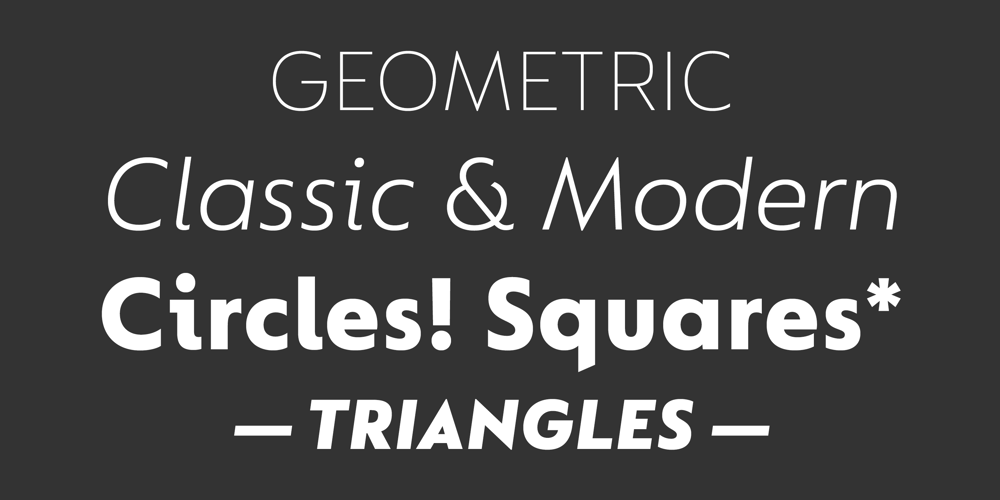
FS Lucas
FS Lucas font
FS Lucas Font Family was designed by Stuart De Rozario and published by Fontsmith. FS Lucas contains 18 styles and family package options. Pure and not-so-simpleMaybe it’s the air of purity, openness and transparency that they transmit, but geometric typefaces are more popular than ever among leading brands. Based on near-perfect circles, triangles and squares, geometric letterforms look uncomplicated, even though making them readable is anything but – something the designers of the first wave of geometric fonts discovered nearly a century ago. Many of the world’s most recognisable brands in technology, retail, travel, food, manufacturing and other industries continue to be drawn to the straightforward, honest character that geometric fonts convey.Fontsmith set out in 2015 to develop a typeface in the same tradition, but optimised for the demands of modern brands – online and offline usage, readability and accessibility. And, of course, with the all-important Fontsmith x-factor built in. FS Lucas is the bold and deceptively simple result.Handle with careThe letterforms of FS Lucas are round and generous, along the lines of Trajan Column lettering stripped of its serifs. But beware their thorns. Their designer, Stuart de Rozario, who also crafted the award-winning FS Millbank, wanted a contrast between spiky and soft, giving sharp apexes to the more angular letterforms, such as A, M, N, v, w and z.Among his inspirations were the colourful, geometric compositions of Frank Stella, the 1920s art deco poster designs of AM Cassandre, and the triangular cosmic element symbol, which led him to tackle the capital A first, instead of the usual H. The proportions and angles of the triangular form would set the template for many of the other characters. It was this form, and the light-scattering effects of triangular prisms, that lit the path to a name for the typeface: Lucas is derived from lux, the Latin word for light.Recommended readingEarly geometric typefaces were accused of putting mathematical integrity before readability. FS Lucas achieves the trick of appearing geometric, while taking the edge off elements that make reading difficult.Perfectly circlular shapes don’t read well. The way around that is to slightly thicken the vertical strokes, and pull out the curves at the corners to compensate; the O and o of FS Lucas are optical illusions. Pointed apexes aren’t as sharp as they look; the flattened tips are an essential design feature. And distinctive details such as the open terminals of the c, e, f, g, j, r and s, and the x-height bar on the i and j, aid legibility, especially on-screen.These and many other features, the product of sketching the letterforms in the first instance by hand rather than mapping them out mechanically by computer, give FS Lucas the built-in humanity and character that make it a better, easier read all-round.Marks of distinctionUnlike some of its more buttoned-up geometric bedfellows, FS Lucas can’t contain its natural personality and quirks: the flick of the foot of the l, for example, and the flattish tail on the g and j. The unusual bar on the J improves character recognition, and the G is circular, without a straight stem. There’s a touch of Fontsmith about the t, too, with the curve across the left cross section in the lighter weights, and the ampersand is one of a kind.There’s a lot to like about Lucas. With its 9 weights, perfect proportions and soft but spiky take on the classic geometric font, it’s a typeface that could light up any brand.